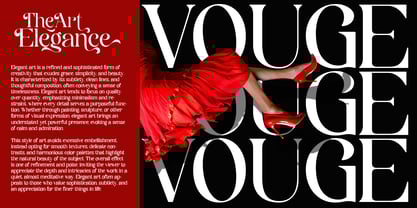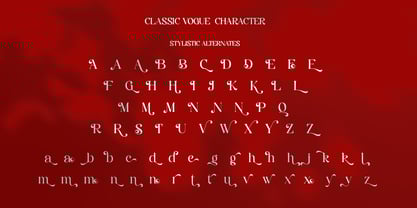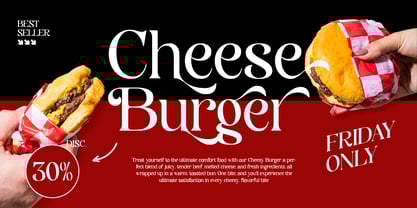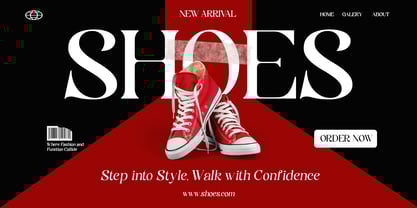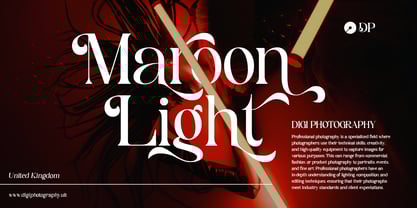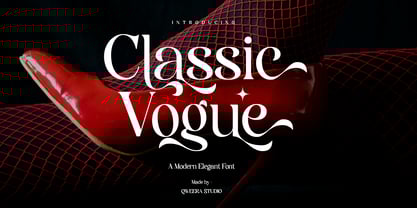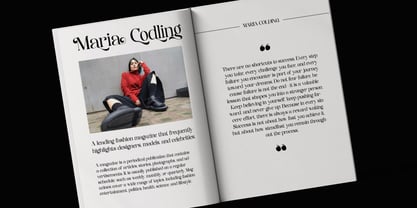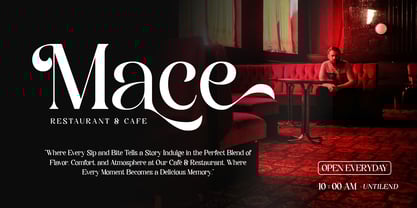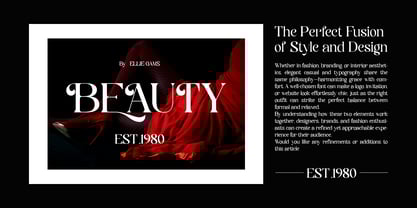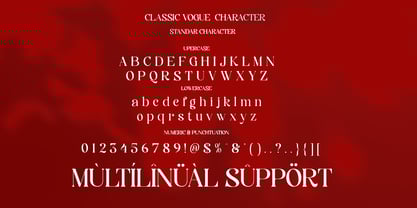
Classic Vogue
by Qweera Studio
The Classic Vogue Font Family was designed by Idhham Cholid Rikzano Yahya and published by Qweera Studio. Classic Vogue contains 2 styles and family package options.
Classic Vogue - Modern Elegant Serif Font for Timeless Branding
Classic Vogue is a sophisticated serif typeface that blends contemporary elegance with timeless appeal. Featuring both regular and italic versions with refined alternates and ligatures, this font is meticulously crafted for luxury branding, high-end logos, premium packaging, and editorial designs that demand sophistication.
Where Modern Refinement Meets Classic Grace
With its balanced letterforms and graceful italics, Classic Vogue delivers exceptional versatility for prestigious branding projects. The carefully designed alternates and ligatures allow for exquisite typographic compositions that exude confidence and style.
Premium Features Include:
• Elegant Serif Design – Perfect for luxury branding and corporate identity
• Dual Style Versions – Regular & italic for harmonious typography
• Exclusive Alternates – 20+ special glyphs for unique customization
• Sophisticated Ligatures – Flawless letter connections for premium aesthetics
• Universal Application – From business cards to billboards
• Extended Language Support – Complete Latin character set
Elevate Your Brand with Classic Vogue's Timeless Elegance Ideal for:
• High-end fashion branding
• Premium cosmetic packaging
• Luxury hotel identity systems
• Elegant magazine layouts
• Sophisticated wedding suites